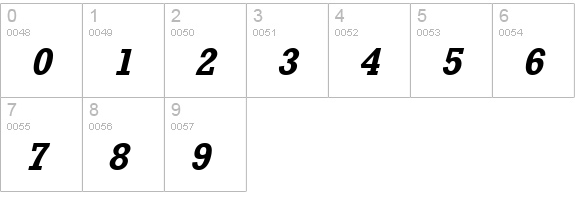
Rockney Bold Italic is a strong, high-contrast, italic variant in the Rockney typeface family \xE2\x80\x94 well suited to headlines, attention-grabbing titles, and strong calls-to-action.
Introducing Rockney Bold Italic font - a striking and versatile typeface that combines the boldness of rock music with the elegance of calligraphy. This dynamic font features strong, thick lines paired with sleek, slanted italics, creating a bold and modern look perfect for a wide range of design projects. Rockney Bold Italic font is ideal for headlines, logos, posters, and any design project that requires a strong and impactful typeface. Its unique blend of rock-inspired aesthetics and italic flair sets it apart from conventional fonts, making it a standout choice for designers looking to make a statement. And the best part? Rockney Bold Italic font is completely free to download at FontsMarket.com, allowing you to add this eye-catching typeface to your font library without breaking the bank. Don't miss out on the opportunity to enhance your designs with this bold and expressive font - download Rockney Bold Italic today!